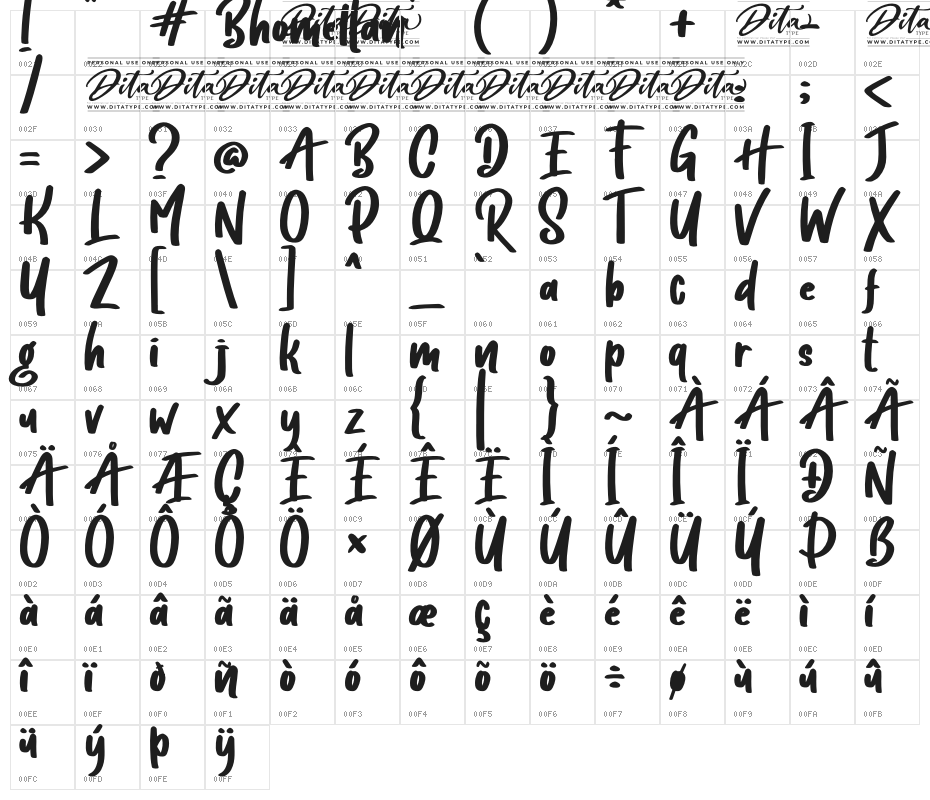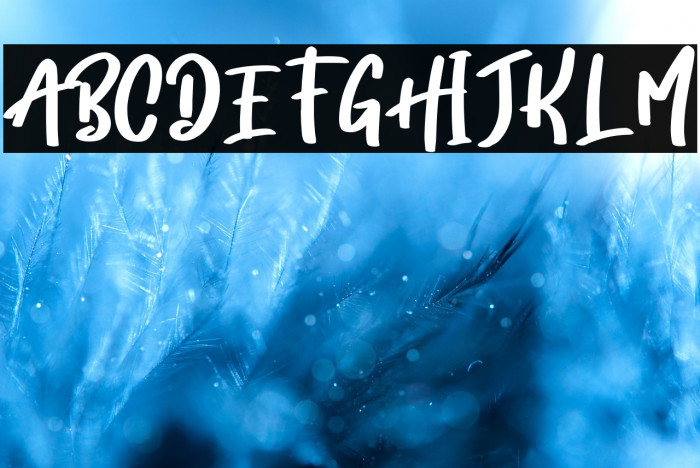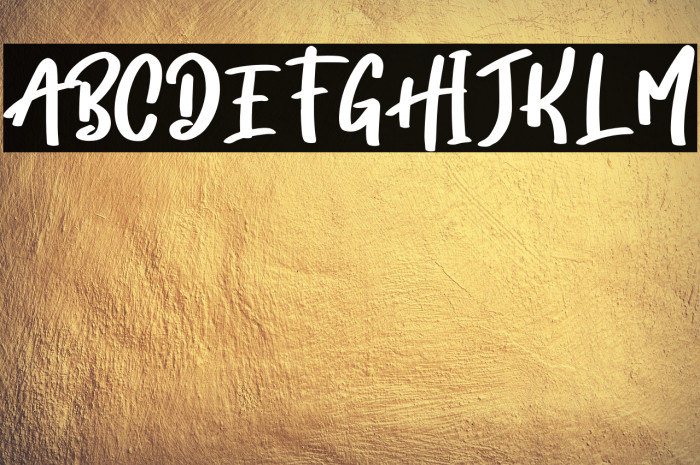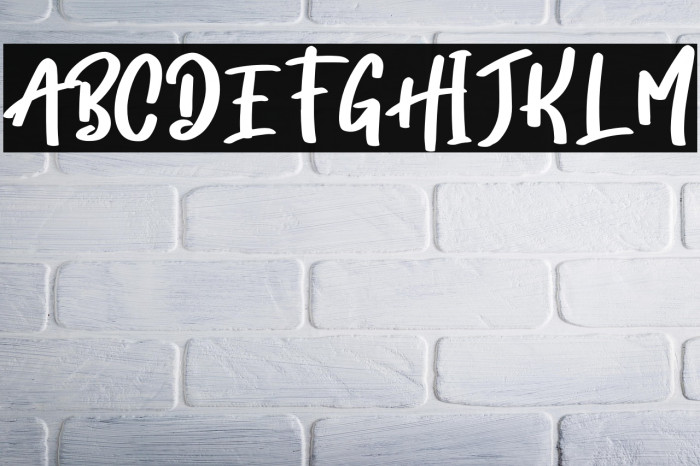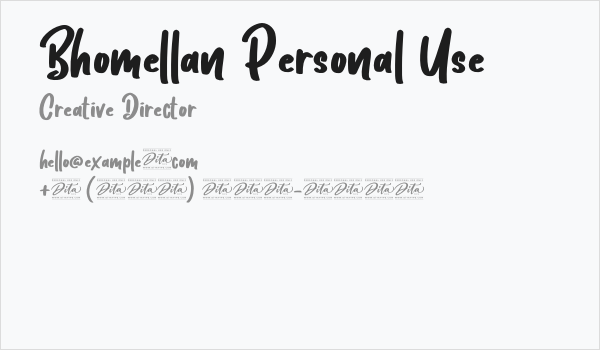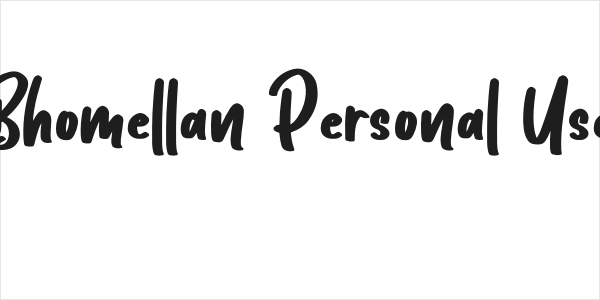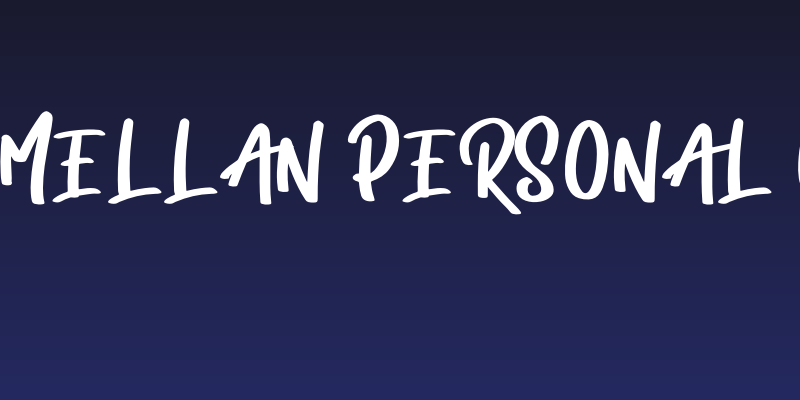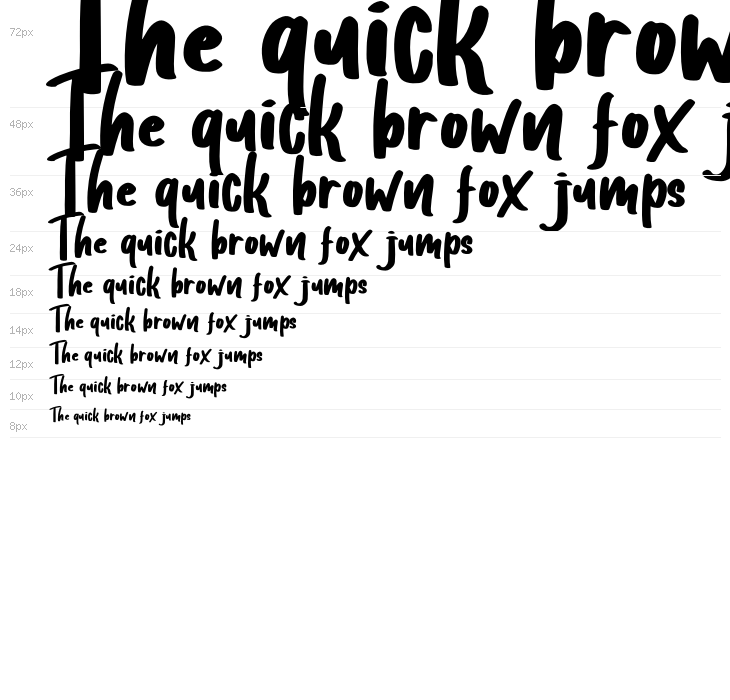
Bhomellan Personal Use Font
Bhomellan Personal Use Description
This font features a bold, handwritten style with a playful and energetic character. The letters are crafted with a brush-like appearance, giving them a dynamic and fluid motion. The uppercase and lowercase letters maintain a consistent style, with rounded edges and varying stroke widths that add to its lively aesthetic. The font includes a full set of uppercase and lowercase letters, numbers, and a selection of special characters. Its overall design is both modern and casual, making it suitable for creative and informal applications.